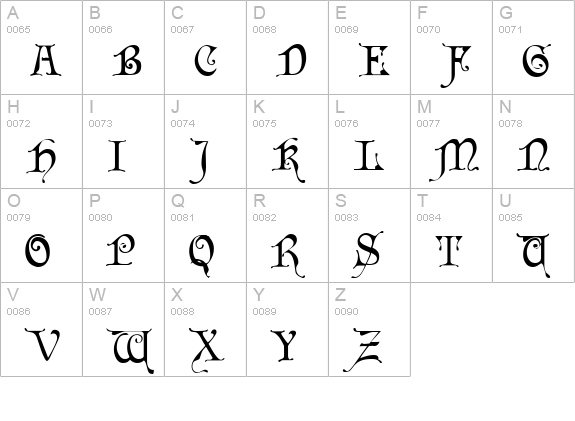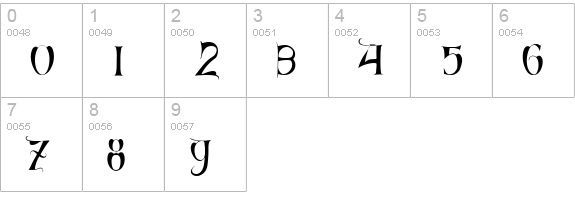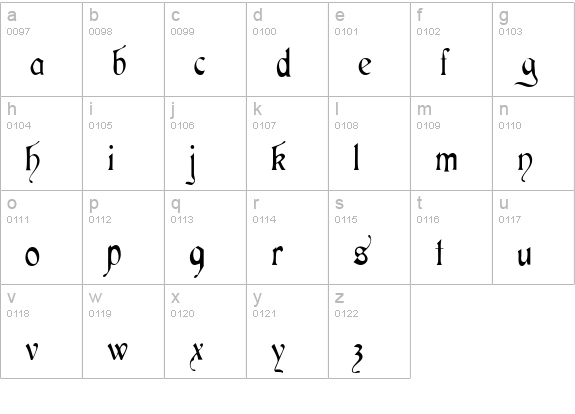
Cardinal Regular is the standard, neutral variant in the Cardinal typeface family \xE2\x80\x94 well suited to general body text, paragraphs, and standard typographic work.
Cardinal Regular font is a stunning typeface that exudes elegance and sophistication. With its clean lines and well-balanced proportions, this font is perfect for a wide range of design projects. Whether you are creating a logo, designing a website, or crafting a professional document, Cardinal Regular font will bring a touch of class to your work. This font boasts a timeless appeal, making it suitable for both contemporary and classic designs. Its versatility is further enhanced by its medium weight, making it easy to read at various sizes. No matter if you need to create headings, body text, or captions, Cardinal Regular font will ensure that your content stands out with clarity and style. One of the best aspects of Cardinal Regular font is that it is free to download. You can easily access this font from FontsMarket.com, a reliable source for high-quality fonts. By making Cardinal Regular font freely available, the creators have ensured that designers of all backgrounds and budgets can add this exceptional typeface to their collection. With its sleek and professional appearance, Cardinal Regular font is a must-have for designers who want to elevate their projects to the next level. Its timeless appeal, versatility, and accessibility make it a valuable asset that will enhance any design endeavor. So why wait? Download Cardinal Regular font today and embark on a journey of creativity and visual refinement.